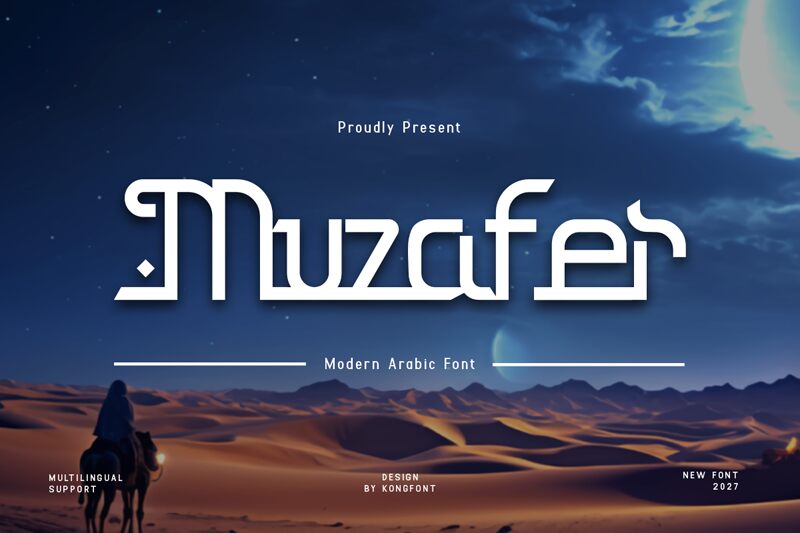
Muzafer font designed by Kong Font introduces a foreign and futuristic type suitable for contemporary design projects. With a minimalist and structured approach, this font captures a clean and modern look combined with geometric influences. It supports a digital aesthetic, making it an excellent choice when an innovative and sleek touch is required.
Incorporate Muzafer in web design, app interfaces, social media graphics, and blog posts. Use it on futuristic posters, magazine covers, and headlines where a modern statement is needed. Others include logo design, packaging, corporate identity, or any personal projects.